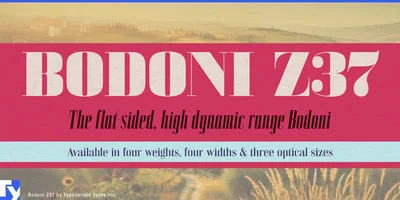
Bodoni Z37 Font
Bodoni Z37 Font is ideal for luxury fashion magazines, high-end advertising campaigns, elegant book covers, sophisticated branding materials, premium product packaging, upscale restaurant menus, classical music programs, art gallery exhibitions, formal invitations, and editorial design projects. This refined serif typeface creates dramatic elegance in both contemporary digital and traditional print applications.
What makes Bodoni Z37 Font exciting is its stunning high-contrast design that perfectly embodies the essence of classical typography with modern precision. The font features dramatic thick-to-thin stroke variations with razor-sharp serifs and geometric perfection that create mesmerizing visual rhythm. Its sophisticated character design establishes an atmosphere of timeless elegance and intellectual authority that commands attention from discerning audiences.
Bodoni Z37 Font family includes classical variations: Light, Regular, Medium, Bold, and Black weights, each available in Roman and Italic styles with expert character sets. Each variant maintains the font's dramatic contrast while providing designers with comprehensive options for creating spectacular typography hierarchies and professional publication layouts.
This prestigious classical typeface brings unmatched sophistication to projects requiring authoritative presentation. Whether you're designing luxury branding, fashion editorials, or premium marketing materials, Bodoni Z37 Font delivers exceptional elegance and dramatic visual impact. The font's classical proportions and high contrast ensure memorable distinction across various high-end applications.